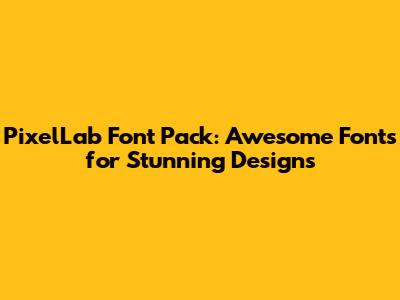
- Consider your audience: Think about who you're trying to reach. Are you designing for kids, professionals, or a specific niche? Your font choice should align with their expectations. A casual script font might work great for a party invite. But it probably won't be as good for a corporate presentation. Know your audience! Understanding the people you're designing for is the first step to a successful design. If you are designing for a professional event, avoid informal fonts. Conversely, if you are designing for a more casual event, do not use serious fonts.
- Match the font to your message: The font should convey the tone and message you're trying to communicate. A bold, strong font is great for headlines. While a more subtle font works well for body text. Make sure that the font reflects the message you want to get across to your audience. The font can reinforce the message, for example, use a more serious font for a serious topic. Or use a playful font for fun topics. Choose wisely and carefully.
- Create a font hierarchy: Use different fonts and sizes to establish a clear hierarchy. This helps guide the viewer's eye and makes your design easier to read. Using a variety of fonts makes the design more appealing. By using different sizes, it helps the audience understand what is most important in the design. Hierarchy creates a better flow of information for the audience.
- Ensure readability: Always prioritize readability. Avoid fonts that are too thin, complex, or crowded. Choose fonts that are easily readable at various sizes and on different backgrounds. Always think about how the font will look on different backgrounds. If you are using a light background, use a darker font. On the other hand, if you are using a dark background, use a lighter font.
- Experiment with pairings: Don't be afraid to combine different fonts. Pair a bold headline font with a more understated font for body text. This adds visual interest and contrast. Try various combinations and find out what works best. Pairing fonts is an art form. Make sure the fonts complement each other. Never use a font that does not go together with another font. Choose the correct fonts to create a more dynamic and engaging design.
- Pay attention to spacing: Adjust the line height and letter spacing to improve readability. Kerning and tracking can make a big difference in the overall look. If the line spacing is too small, it can become hard to read. If the letter spacing is off, it can make it harder to read the font. By adjusting the spacing, you can make your designs look even better. Ensure that your design is perfect by focusing on this.